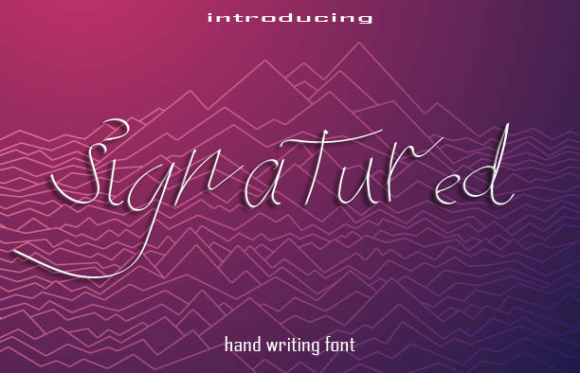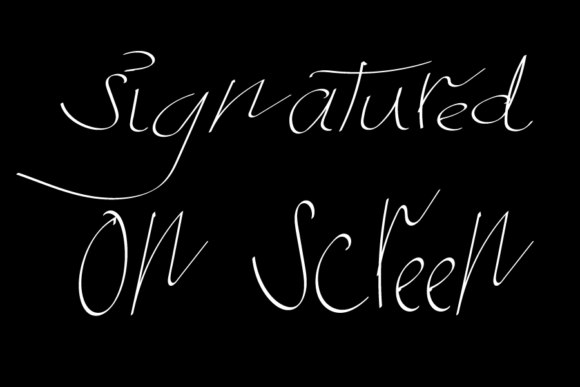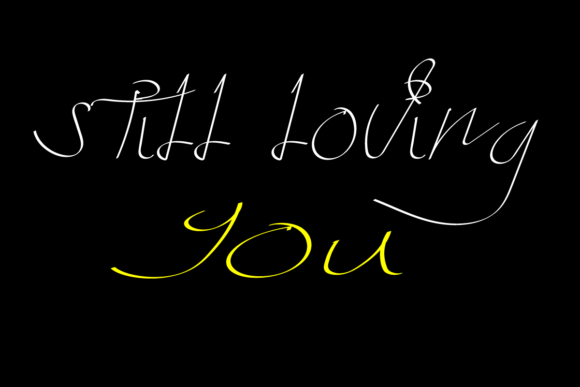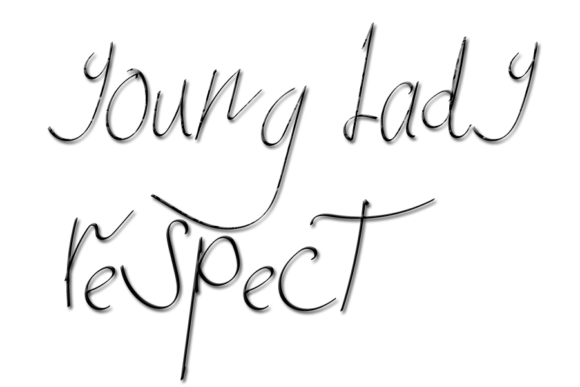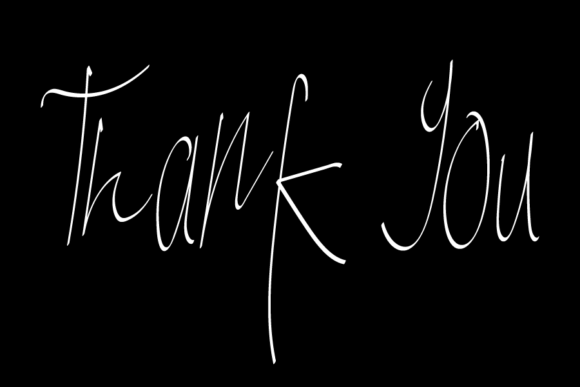
Signatured Font
About Signatured Font
Signatured is a cute and simple lettered handwritten font that can be used for all chalkboard quotes or teaching material! Its authentic look will add a personal and realistic feel to your designs.